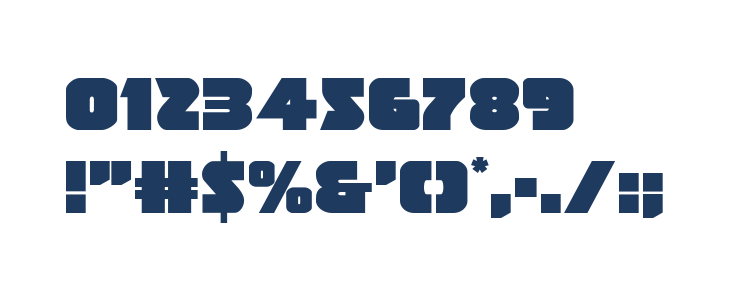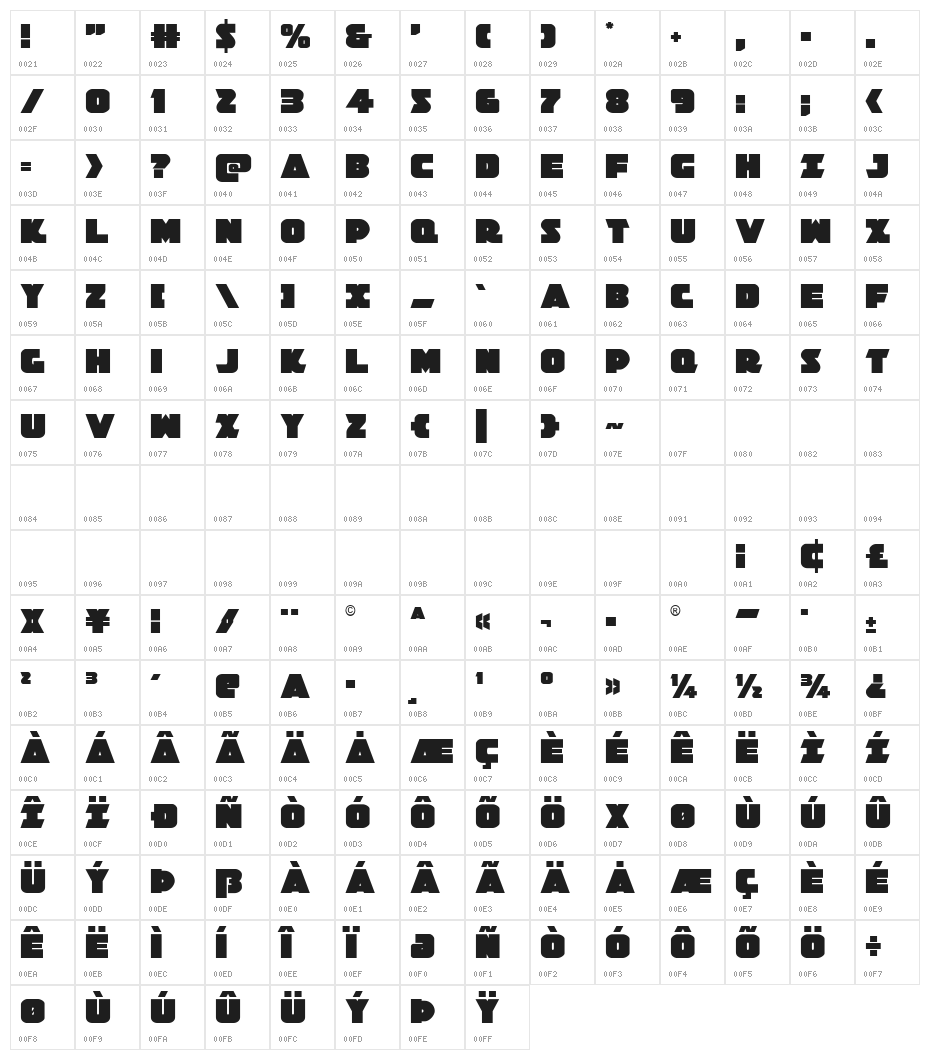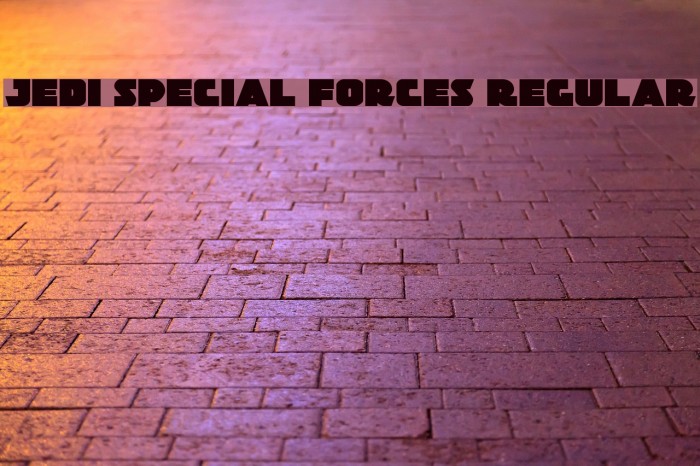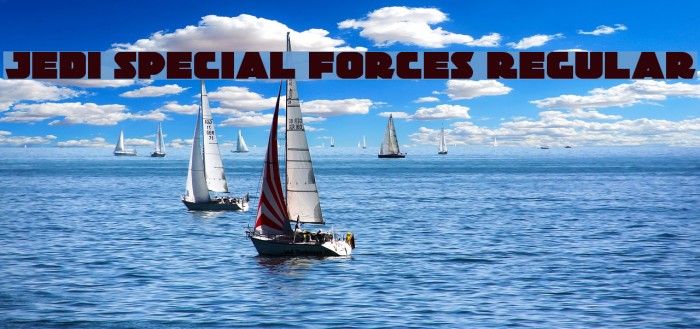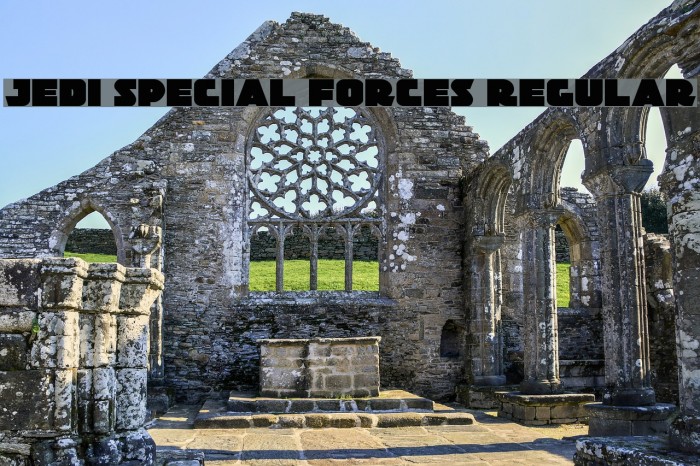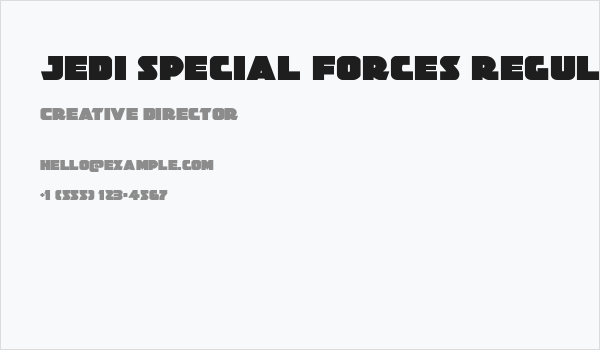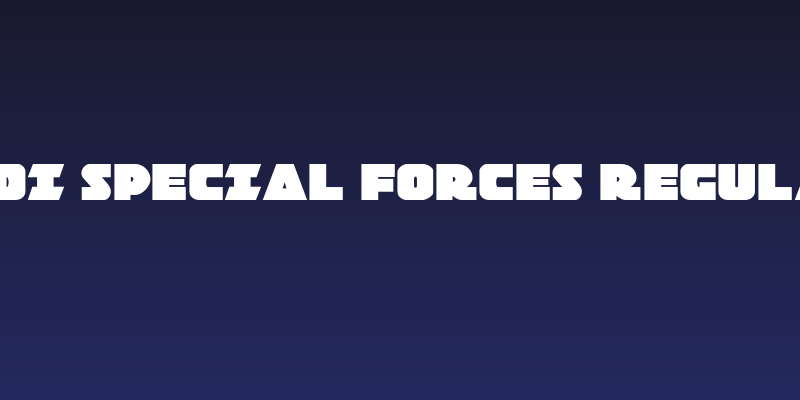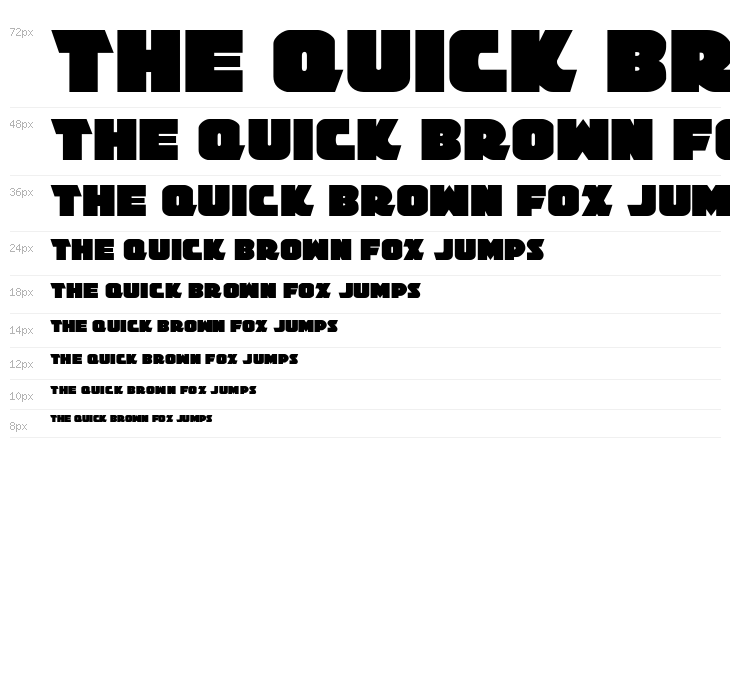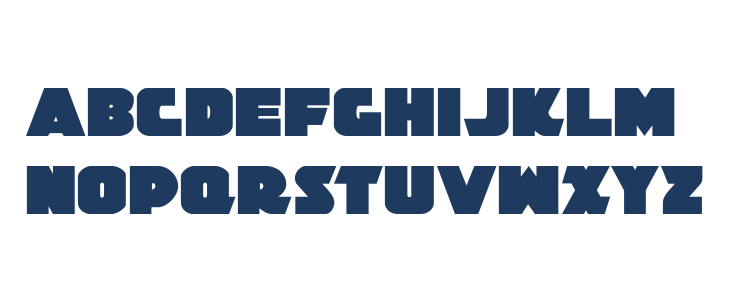
Jedi Special Forces Regular Font
Jedi Special Forces Regular Description
This font features a bold, geometric design with strong, angular lines and a futuristic aesthetic. The characters are wide and blocky, creating a powerful visual impact. The uppercase letters are consistent in height, while the numbers and special characters maintain the same bold style. The font's design is reminiscent of science fiction themes, with a modern and edgy feel. Its solid structure and uniformity make it suitable for attention-grabbing headlines or logos that require a strong presence.